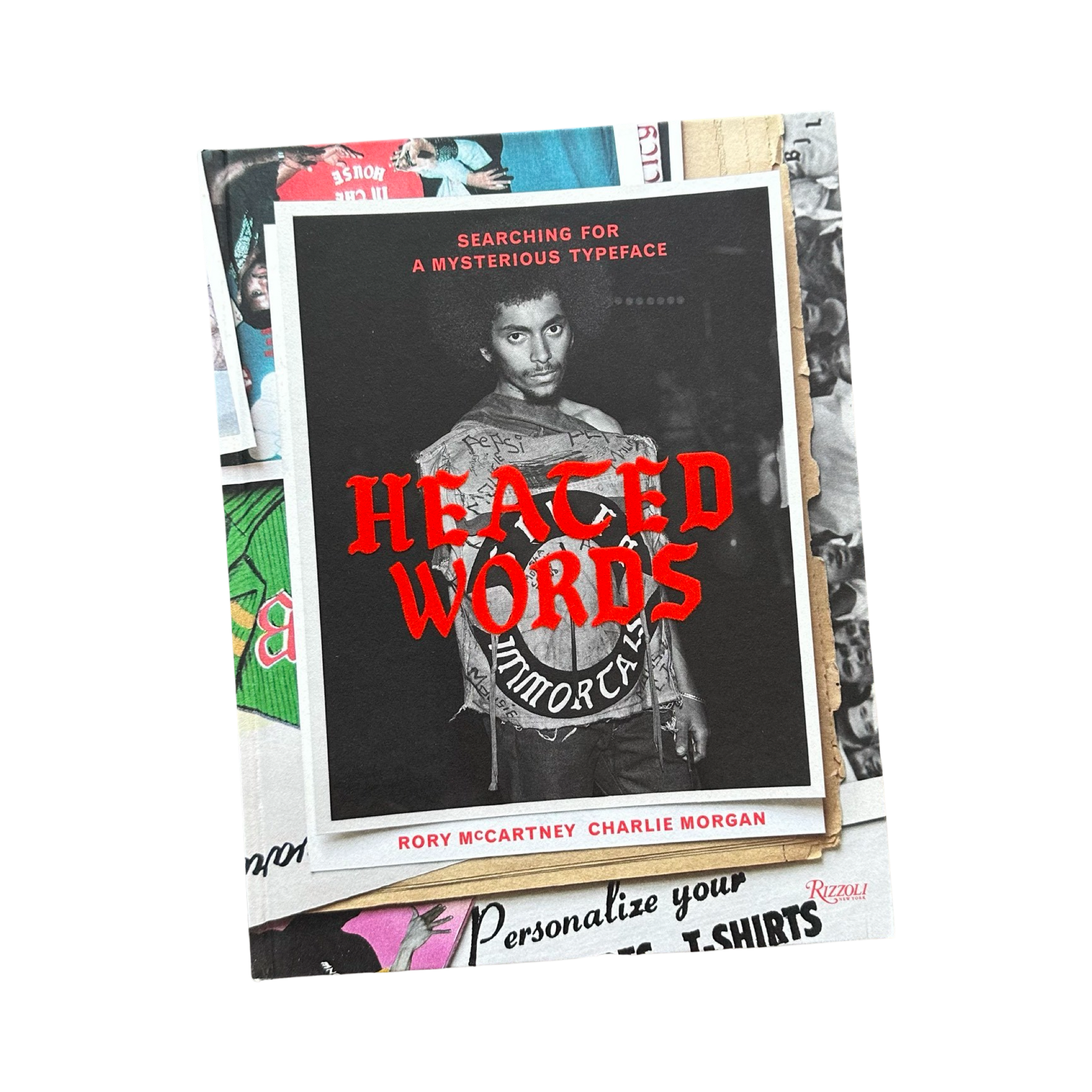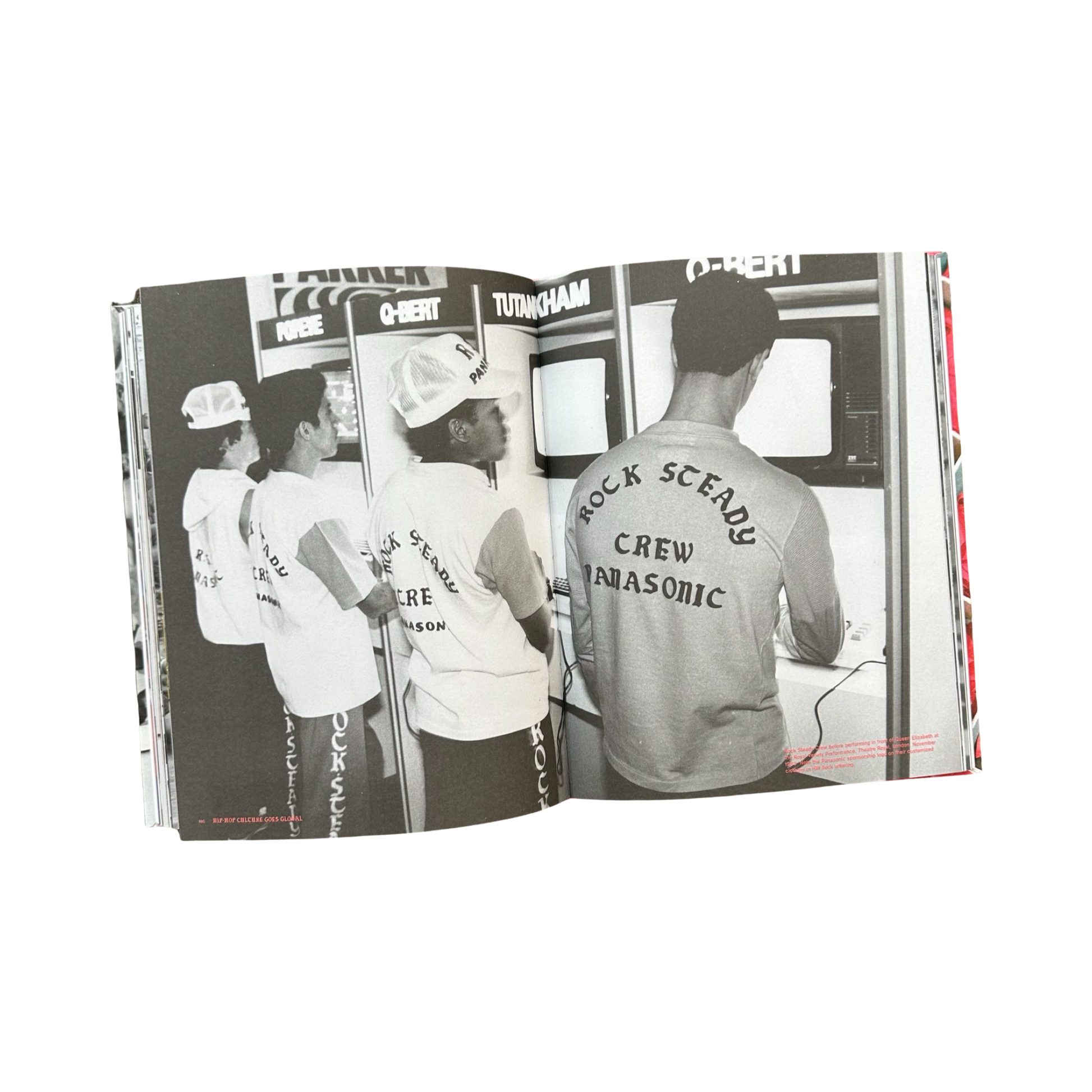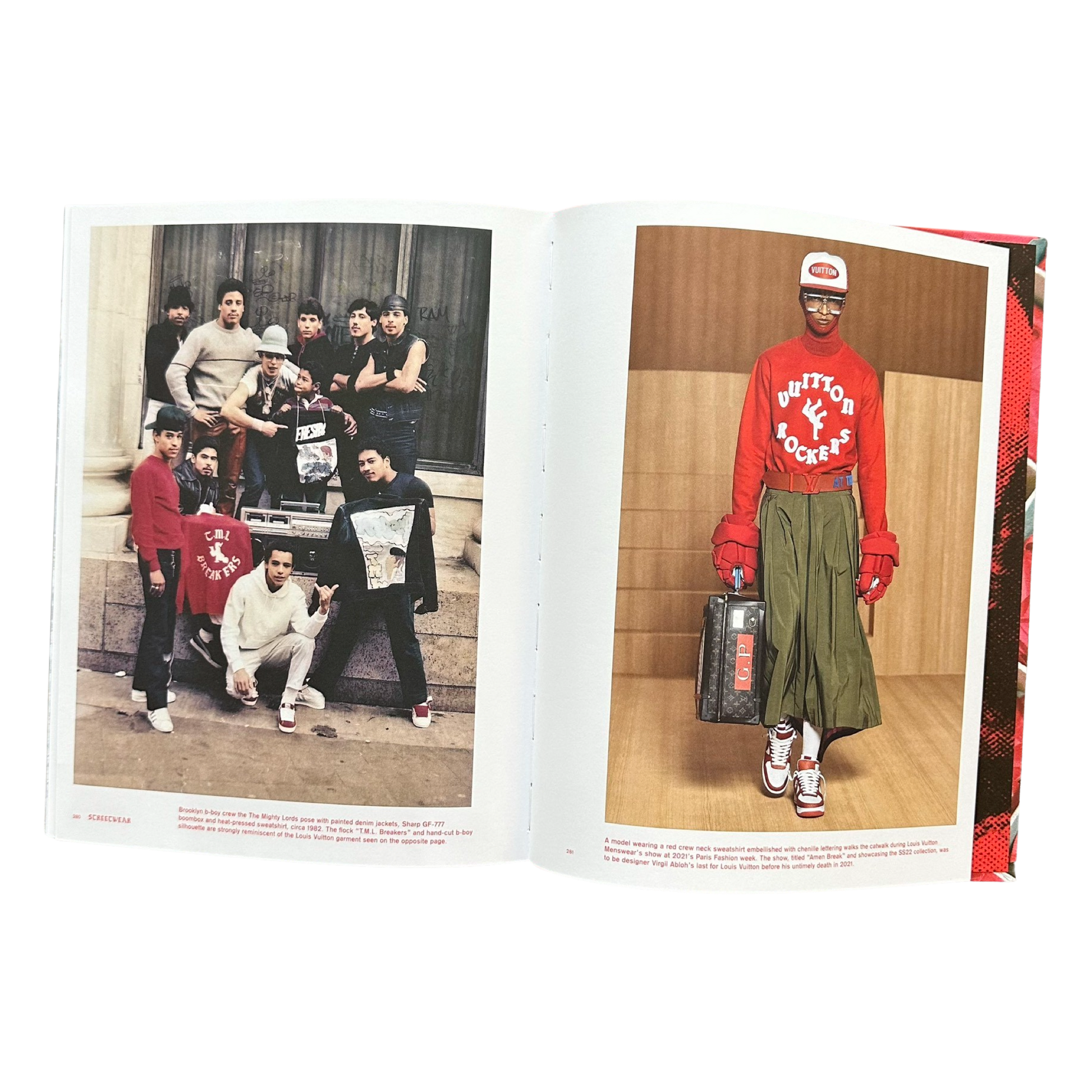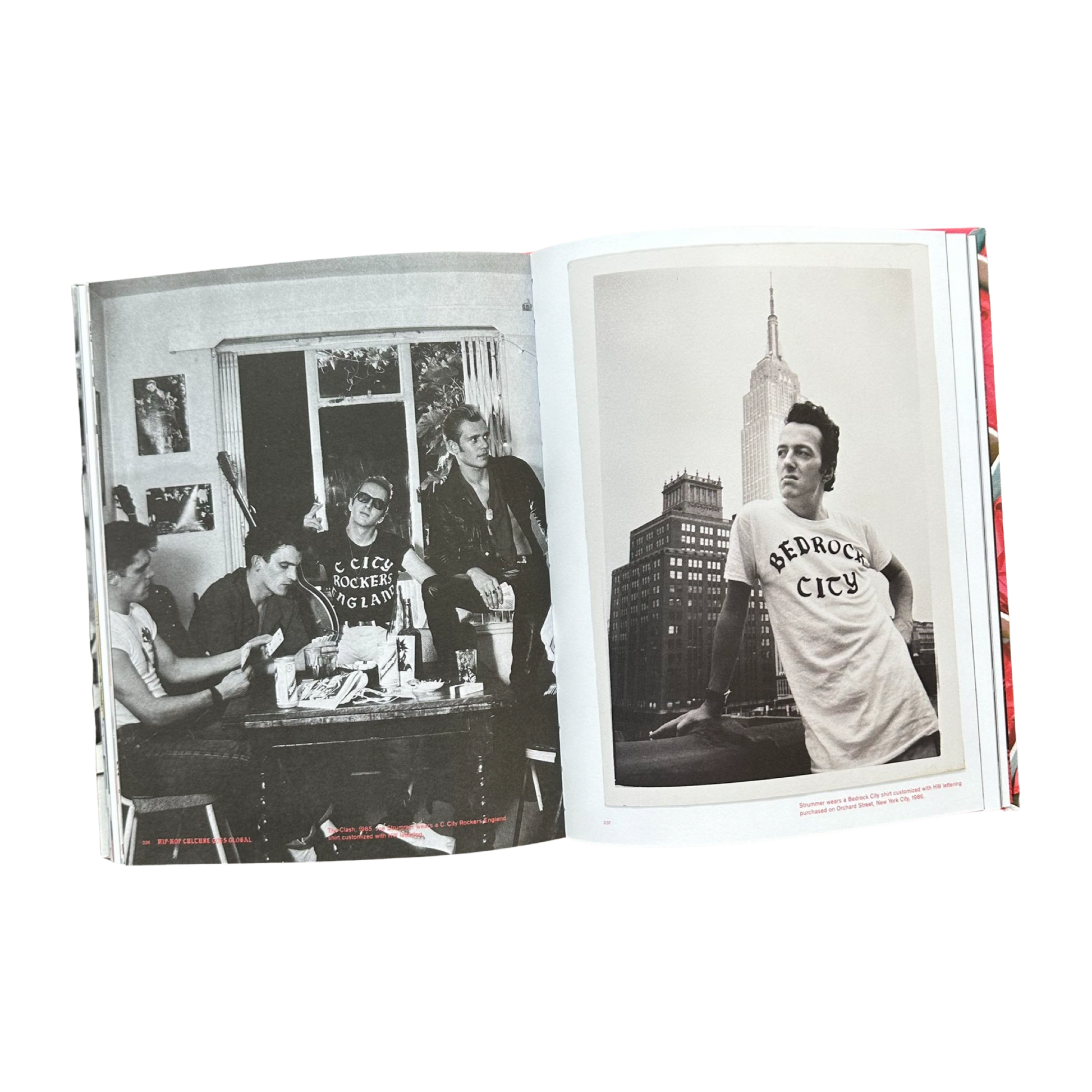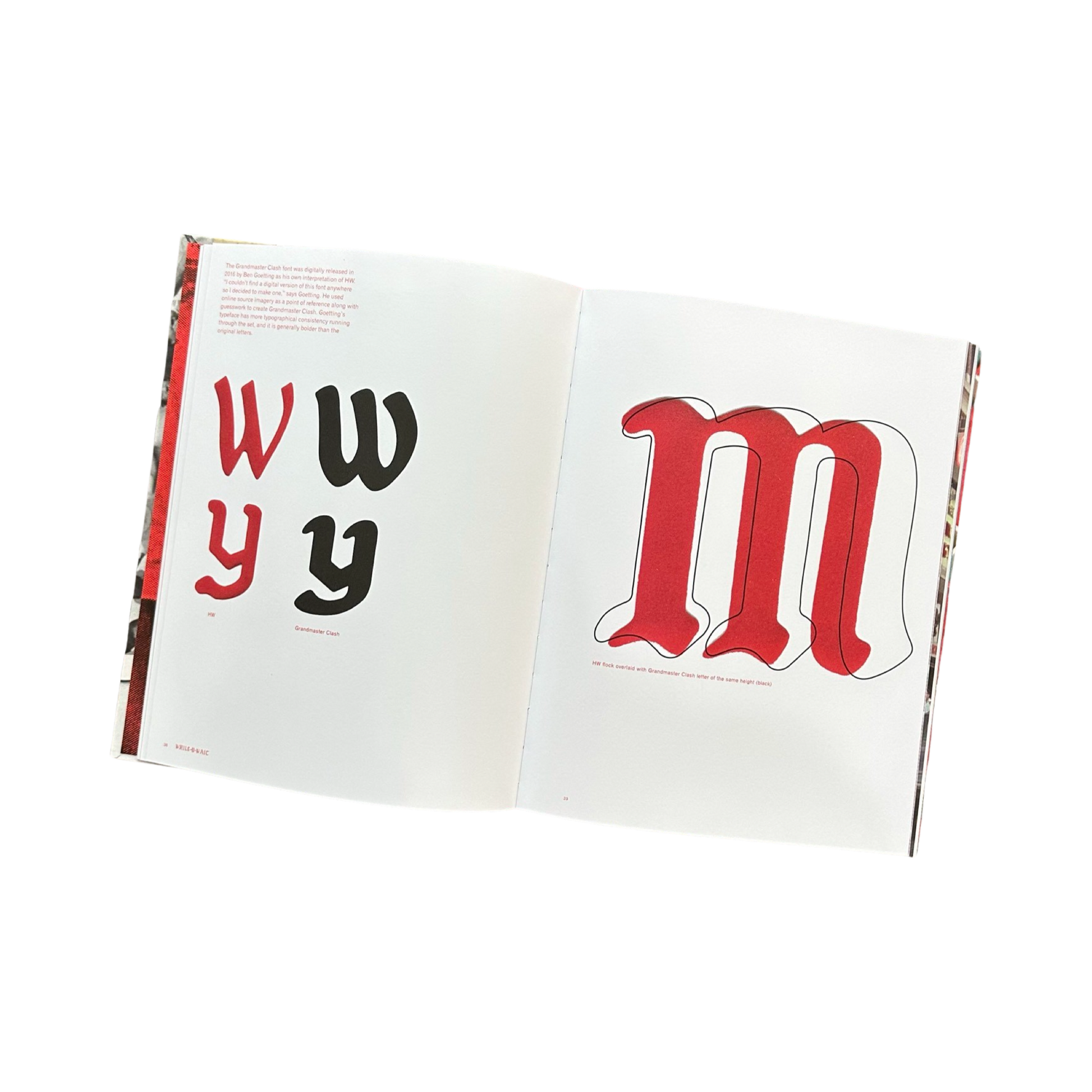
Heated Words - Searching For A Mysterious Typeface
Around the same time that I began creating my font, Grandmaster Clash (which was based on vintage Iron-On Letters from 1970's New York.) Charlie Morgan and Rory McCartney began their exhaustive research on the very same letters. That research has culminated in this AMAZING archive. It even includes a few pages on my typeface and some examples created from it.
The iron-on lettering that is the subject of Heated Words: Searching for a Mysterious Typeface remains without attribution. Created anonymously and passed down over decades and across subcultures, the typeface is unique within the histories of typography and street fashion. With roots dating back to the first calligraphic forms, the enigmatic letters evolved from embellished military flight jackets and sports uniforms in the early part of the twentieth century. Seemingly omnipresent from the 1970s onward in youth culture in New York City, this particular blackletter typeface--bold and imposing--would go on to decorate the fabric of the most influential music and fashion subcultures of the last half-century. Heated Words provides a unique thread through the subcultural landscape of the last fifty years. With insights from voices in the fields of music, fashion and typography, the unique volume features previously unpublished archival images, including hundreds of illustrations and ephemera. Exploring the visual branding of the "outsider" and the resurgence of analog typography, Heated Words is presented through a layout and design that echo the frenetic history of the letters themselves.